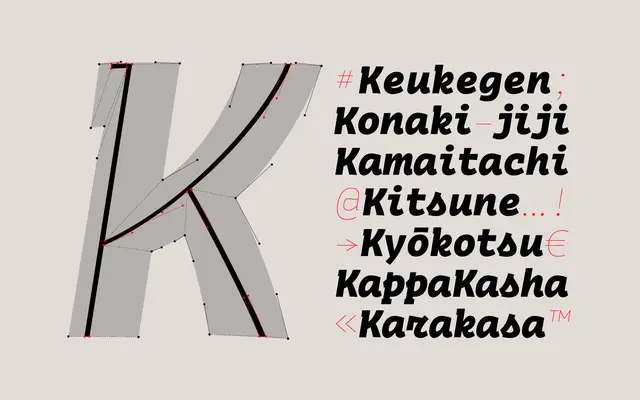
Bakemono
Zetafonts · Francesco Canovaro · 2021
A 42-style superfamily by Francesco Canovaro built around the tension between fixed and proportional widths, drawing on typewriter mechanics and eastern brush calligraphy.
The family runs across three subfamilies: Bakemono Text for proportional reading, Bakemono Mono for true monospaced setting, and Bakemono Stereo as an intermediate monowidth variant that allows weight changes without disrupting text alignment. Seven weights from Thin to Extrabold with italics throughout, two variable axes and 948 glyphs covering Latin, Greek and Cyrillic across 218 languages. Shortlisted at D&AD 2022 and awarded at PRINT and Indigo in 2023, with Arabic and CJK extensions planned.
A sans-serif with a geometric underpinning drawn from typewriter technology and eastern brush calligraphy, with monowidth proportions forming the conceptual spine across all three subfamilies.